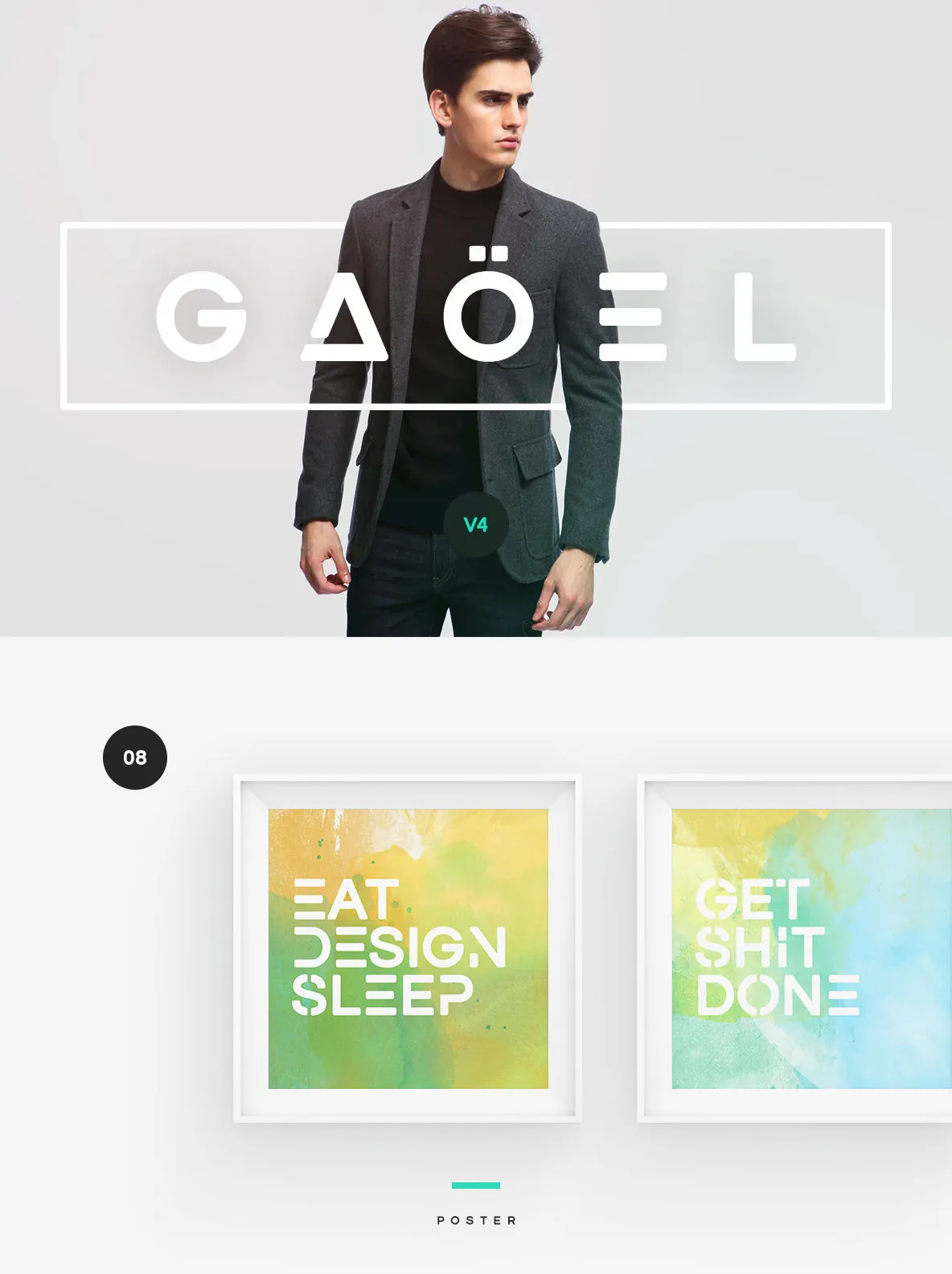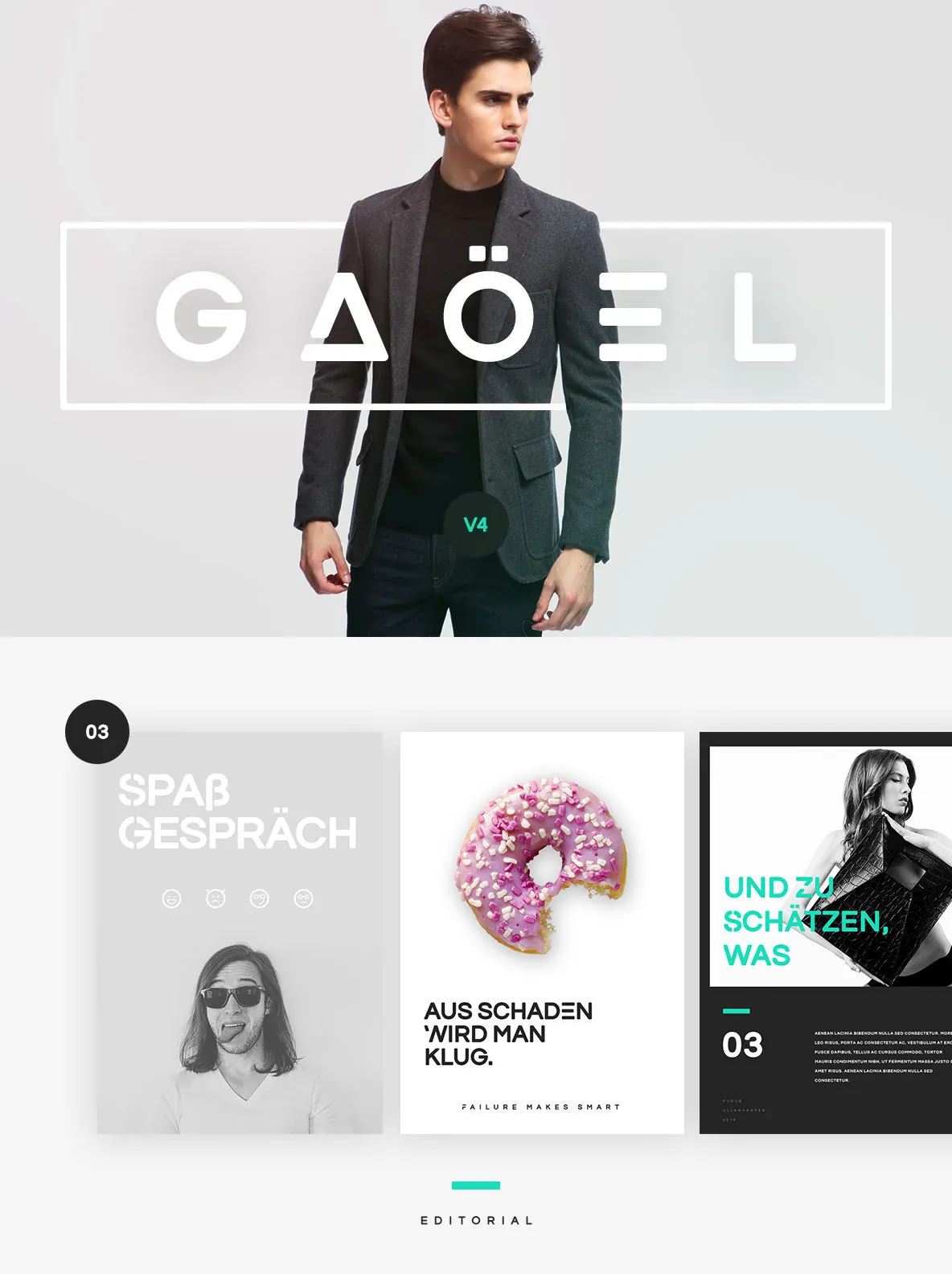
Soft, Bold, and Elegant. Gaoel is an all caps, sans-serif typeface design that feels somehow familiar. It contains an honest tone that’s confident but not arrogant, cozy but not mellow, smooth but not wobbly. The result is a hybrid combining humanistic proportions with a somewhat geometric appearance. This is perfect sans serif to sweeten up your headlines, branding visual identity, editorial, poster, and etc.